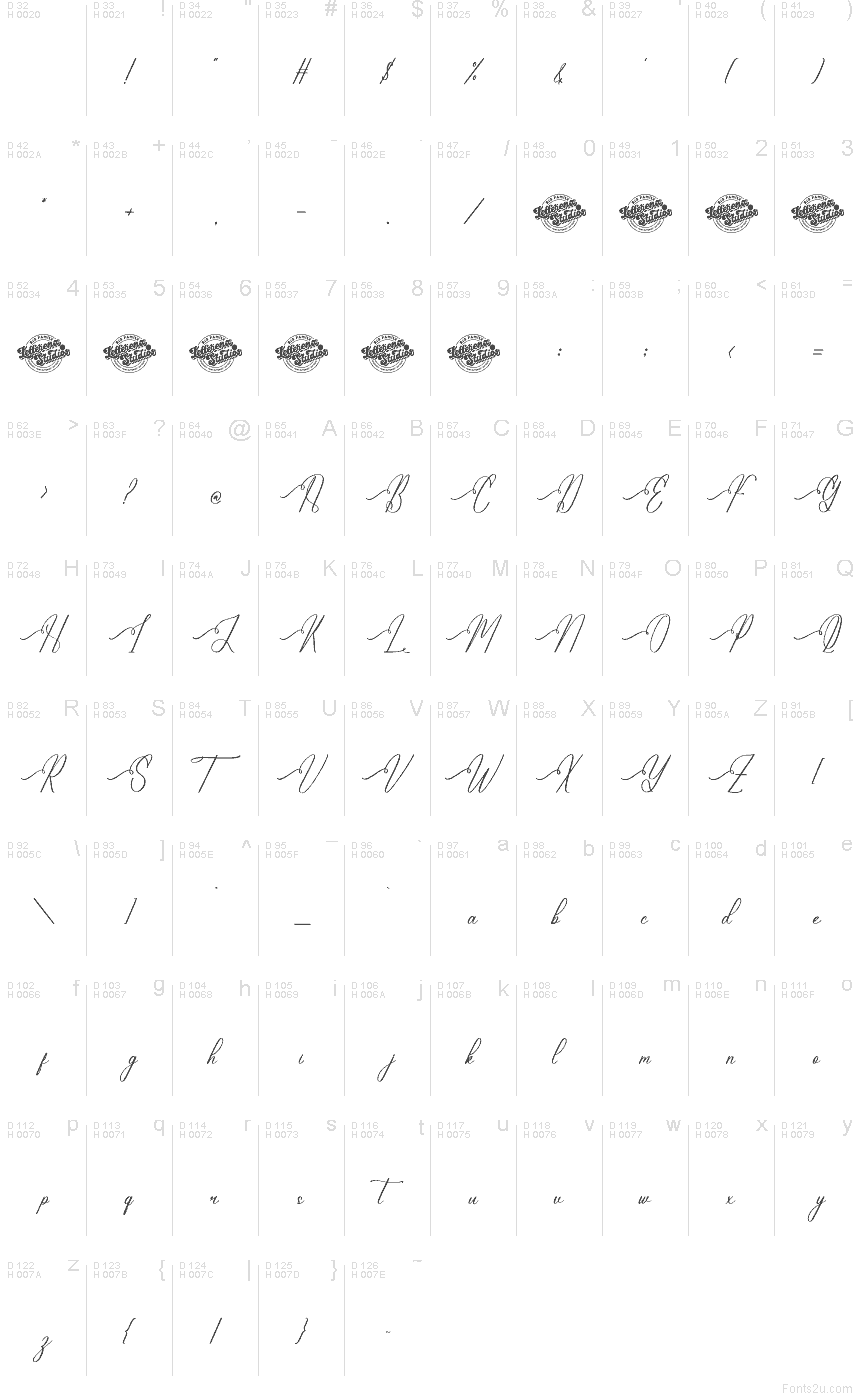
Hidasatie Bastirona DEMO VERSIO
Hidasatie Bastirona font by Letterena Studios is a free calligraphy typeface with a delicate, windswept charm. Airy loops, long hairline swashes, and gently tilted letters give it the feel of ink pulled smoothly across fine stationery. The strokes stay slim and consistent, so even with its generous flourishes, the script looks refined rather than fussy—like hand-lettered signatures captured at their most elegant moment.
Using Hidasatie Bastirona, you can bring that sense of refined handwriting to wedding invitations, save-the-date cards, beauty or skincare branding, boutique logos, packaging labels, and romantic quote graphics. This free font shines at larger sizes where its curls and accents can breathe, while body copy can sit in a clean, modern sans serif to keep everything readable and polished.